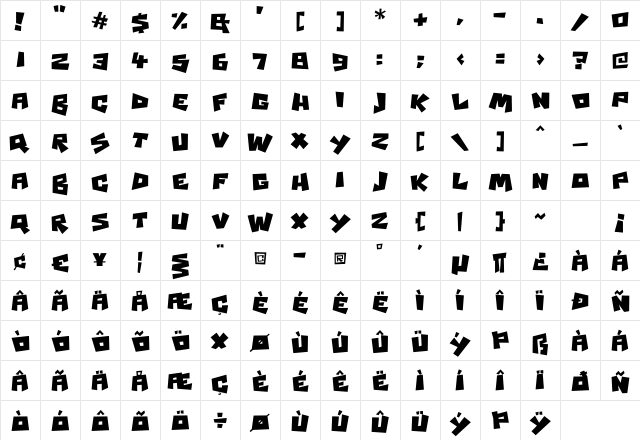
Psycho RObots Regular
Design Context for Psycho RObots
Psycho RObots is a composed and adaptable typeface that performs quietly and consistently across a wide range of design contexts.